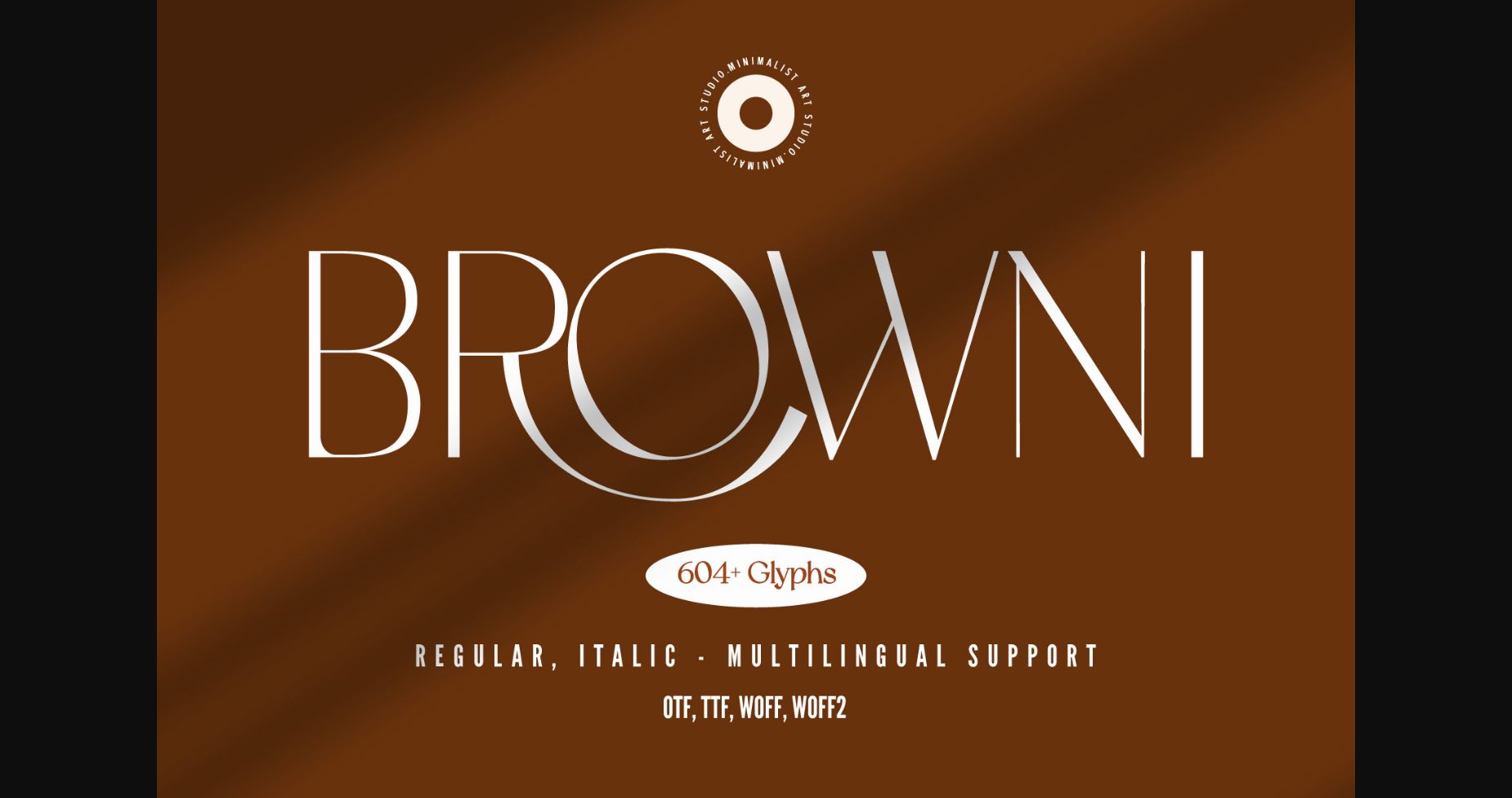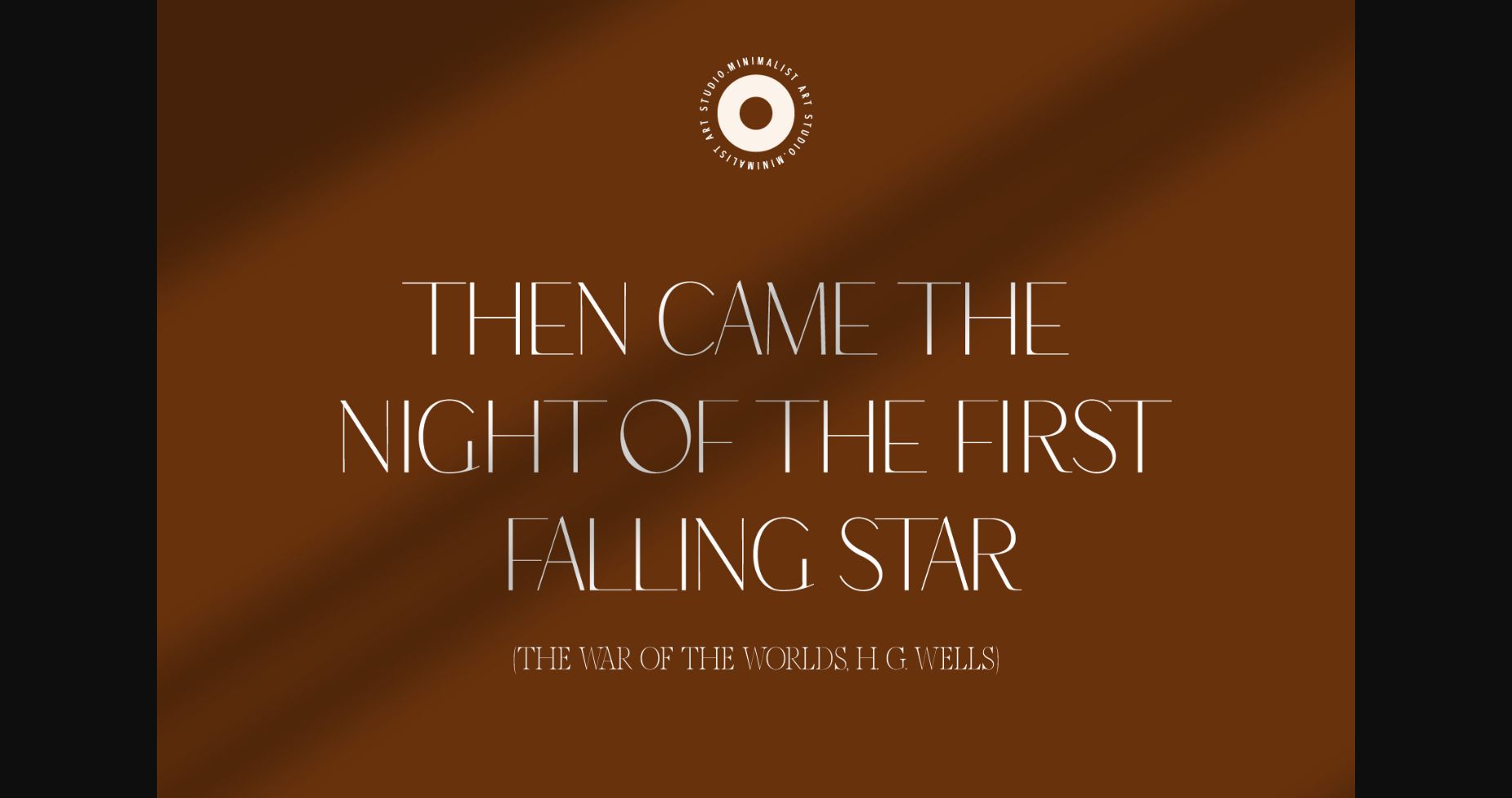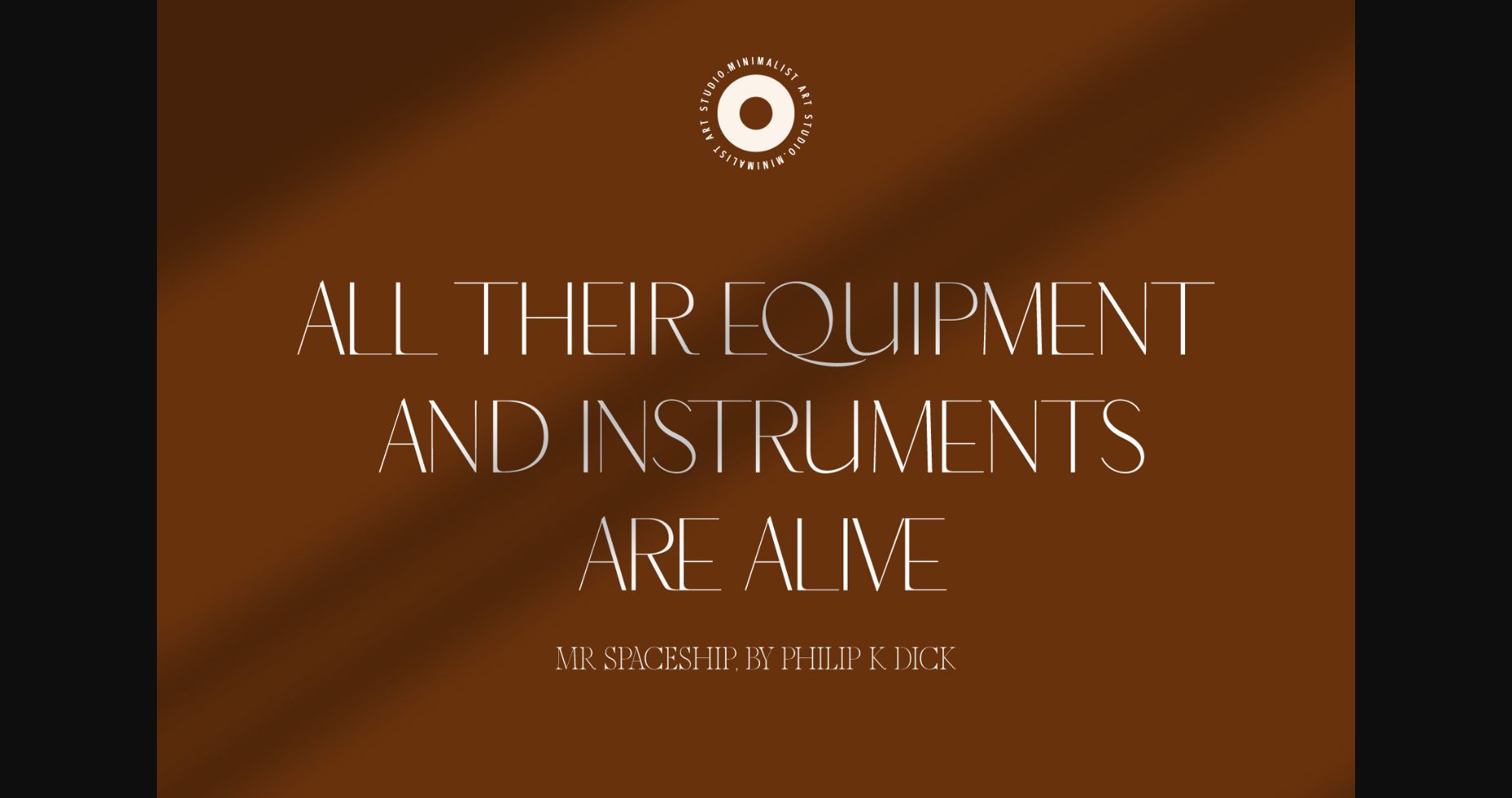
About Browni Font
Introducing Browni, a stunning sans-serif typeface that exudes elegance, minimalism, and sophistication. Designed with a clean and modern aesthetic, Browni is the perfect font for any project that demands a sleek and refined look. With its subtle curves and balanced proportions, Browni is both bold and refined, making it an ideal choice for branding, advertising, editorial design, and much more. Its clean and minimalist style ensures that your message will be conveyed clearly and effectively, without any distractions.